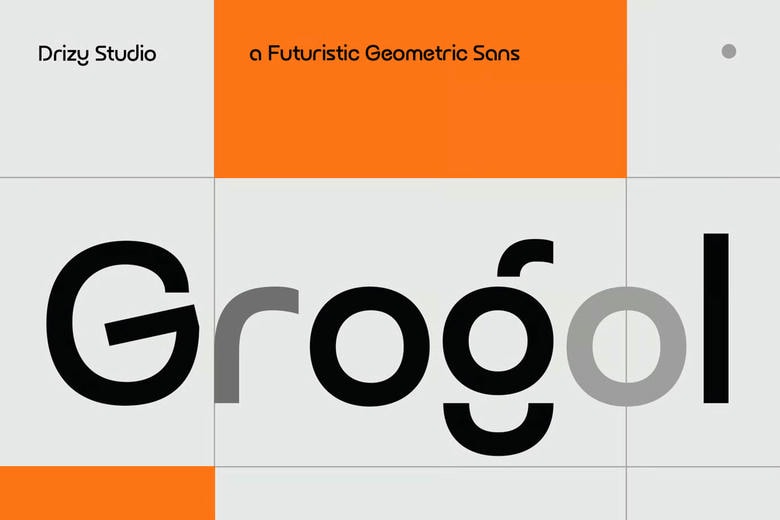
Grogol Font
Grogol is a modern sans-serif font with clean lines, bold shapes, and a distinctive look. Its simple, structured letters give it a sleek feel. You can use this font for logos, branding, posters, headlines, packaging, websites, and other creative projects.
Grogol Futuristic Geometric Sans Font